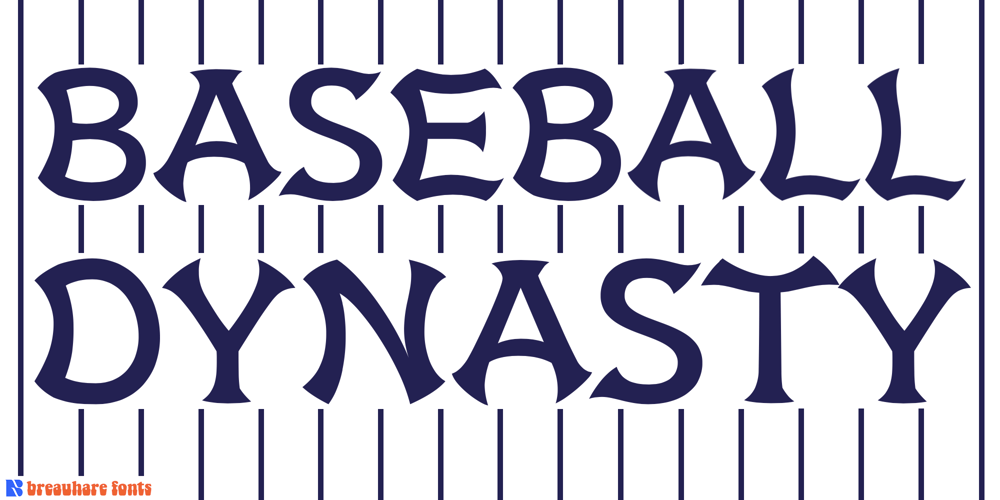
Baseball Dynasty Font Family was designed by Harry Warren and published by Breauhare. Baseball Dynasty contains 1 styles and family package options. Baseball Dynasty™ is an all-caps Art Nouveau font with authentic, classy, turn-of-the-century styling that recalls the early days of baseball. It can be used for historical purposes such as documentaries, but it also lends itself to nostalgic marketing & packaging with its down home, good-old-days kind of vibe. Let Baseball Dynasty™ help you knock your project out of the park! Digitized by John Bomparte. **Breauhare’s Elephant Party™ font also appears in the “Granny’s” poster